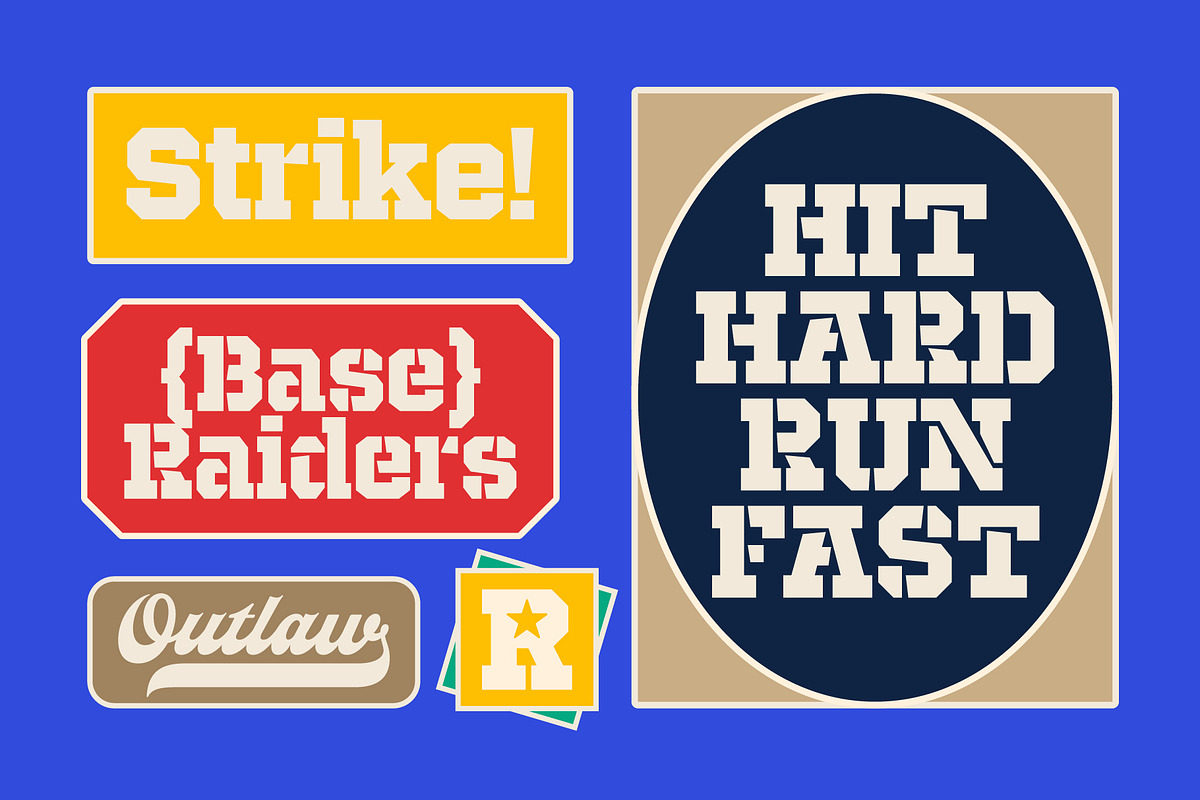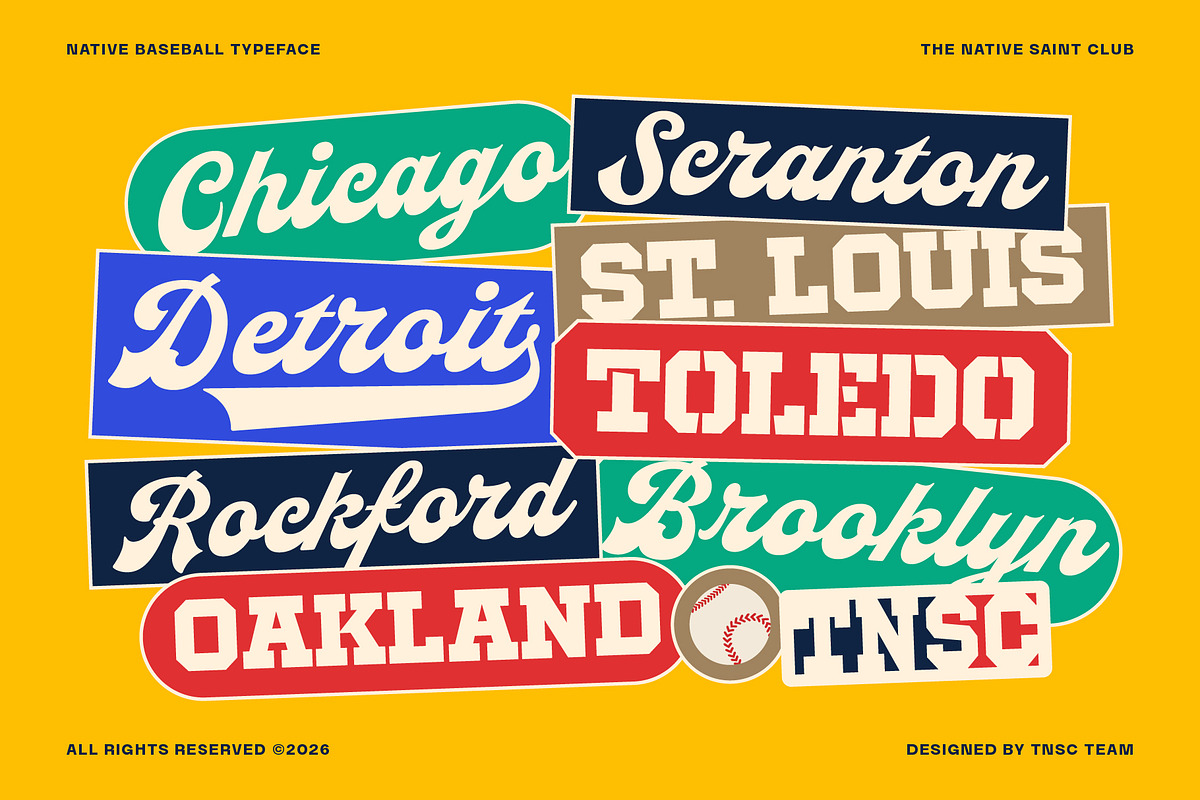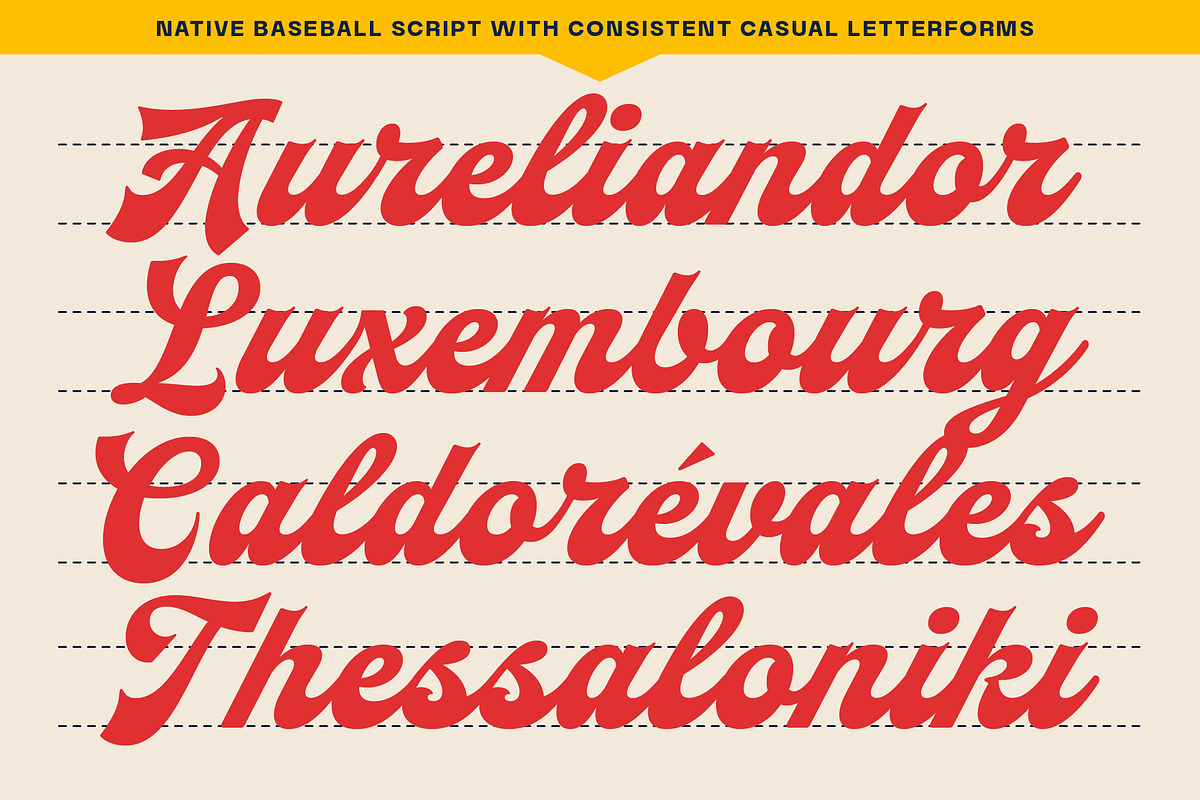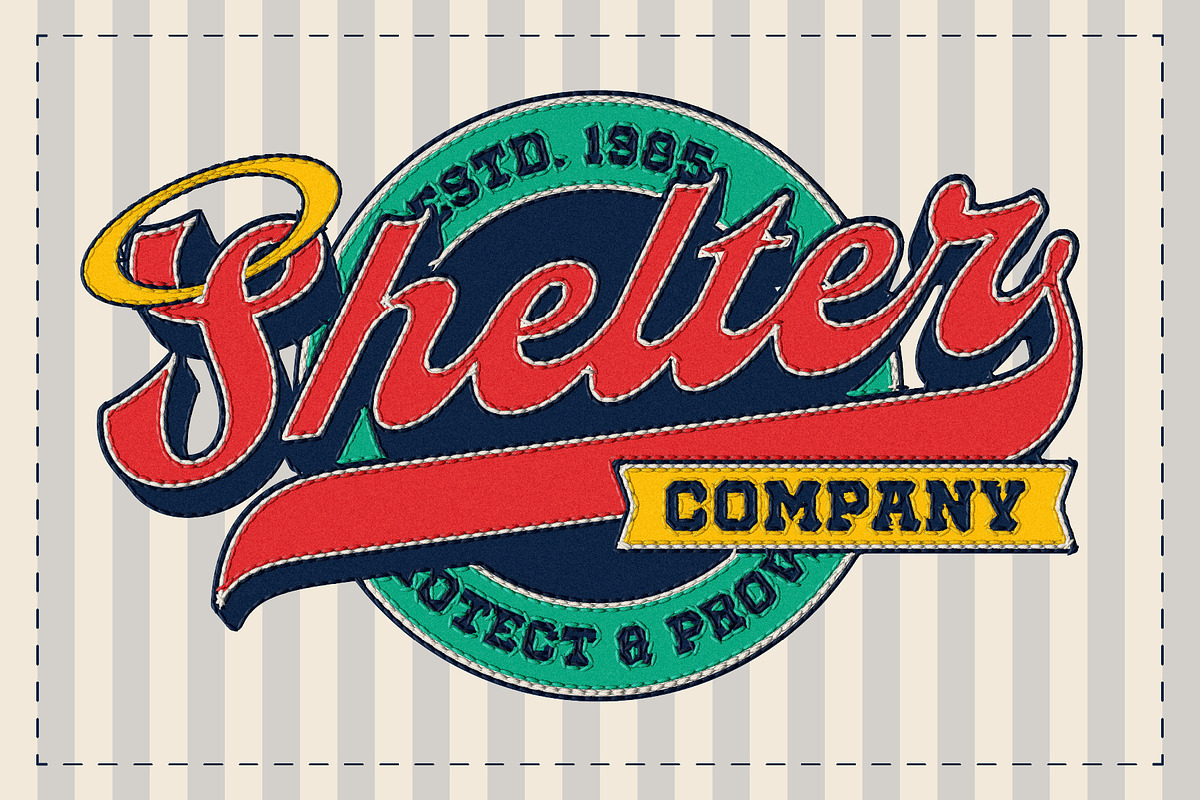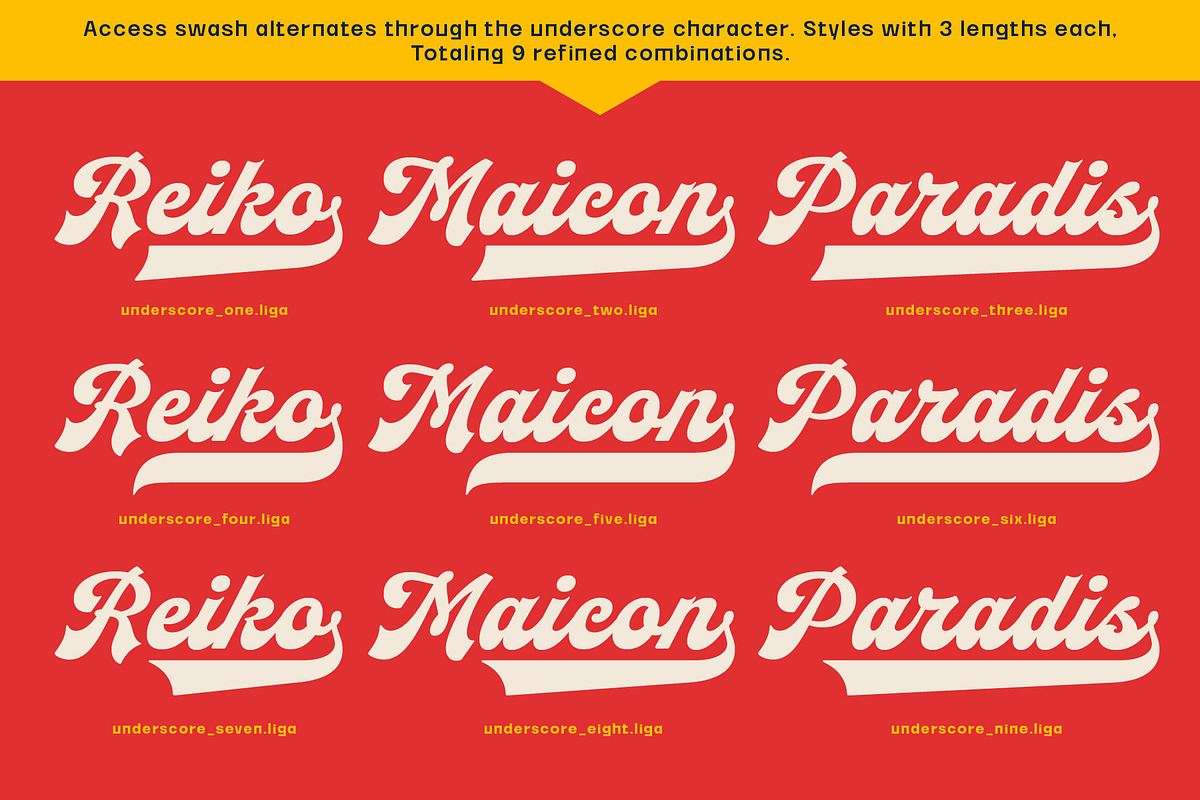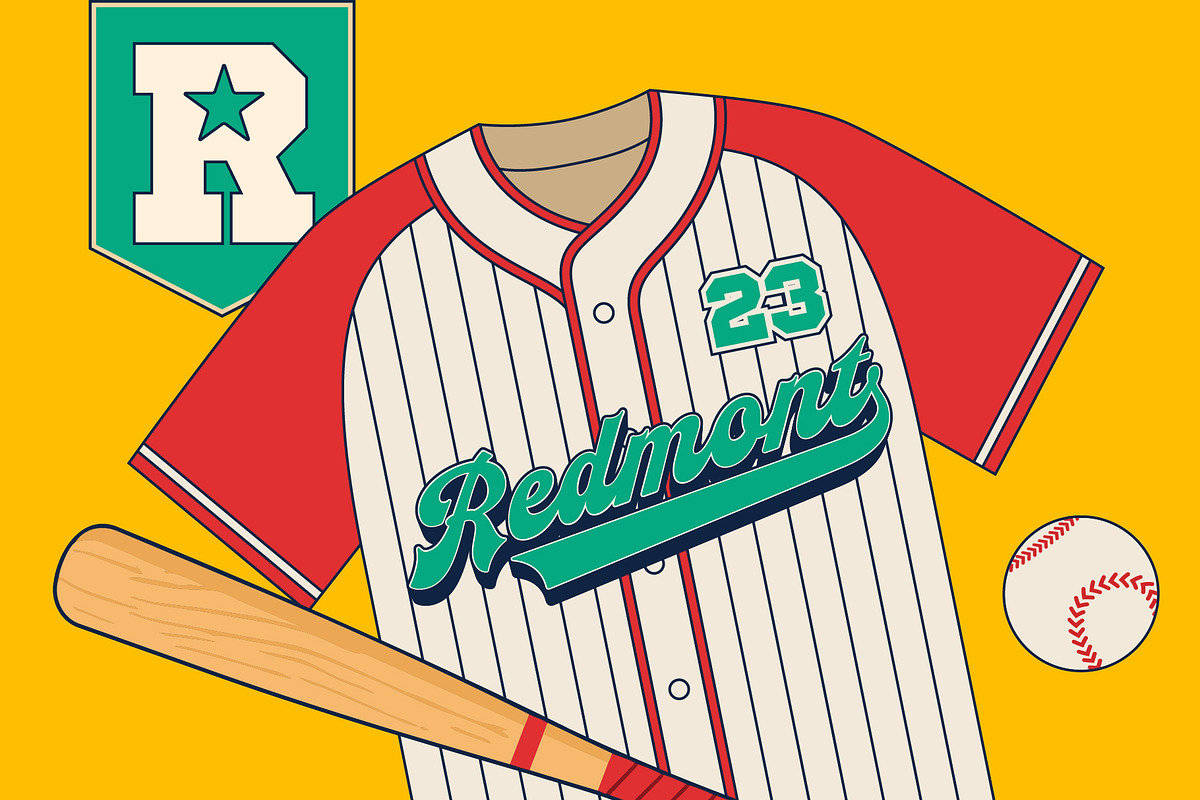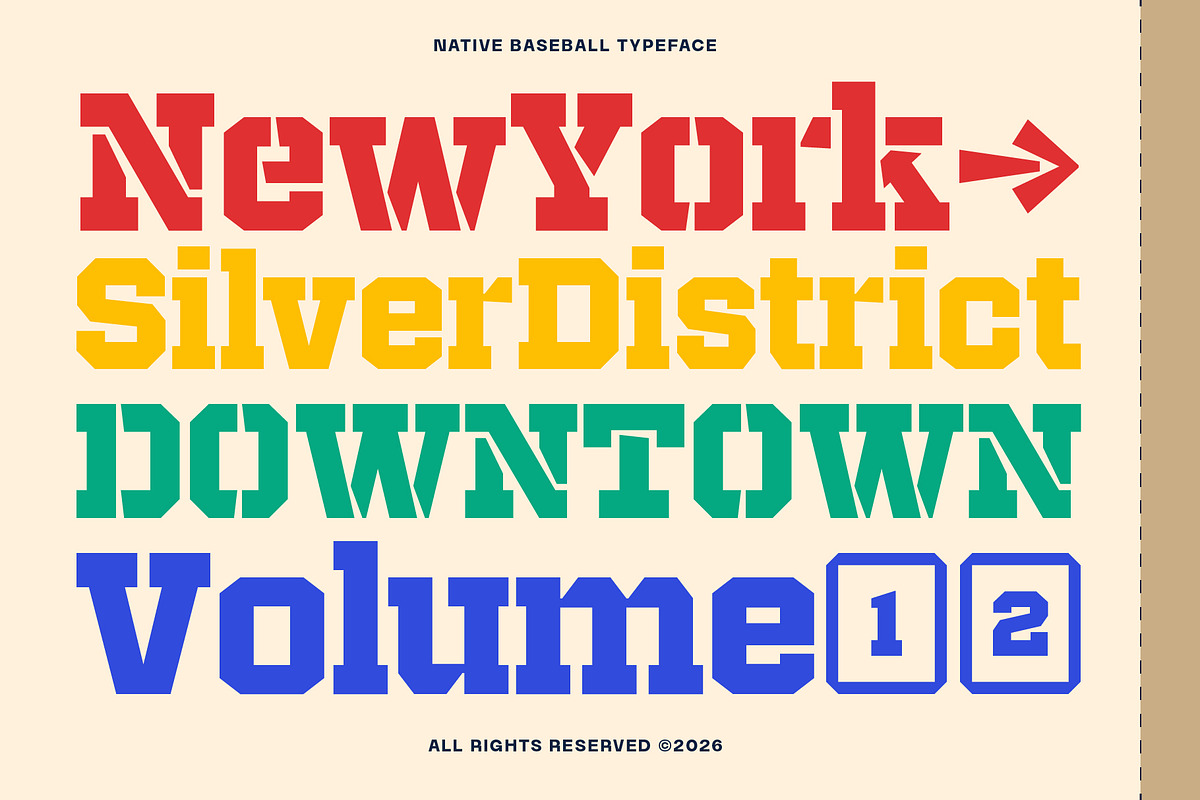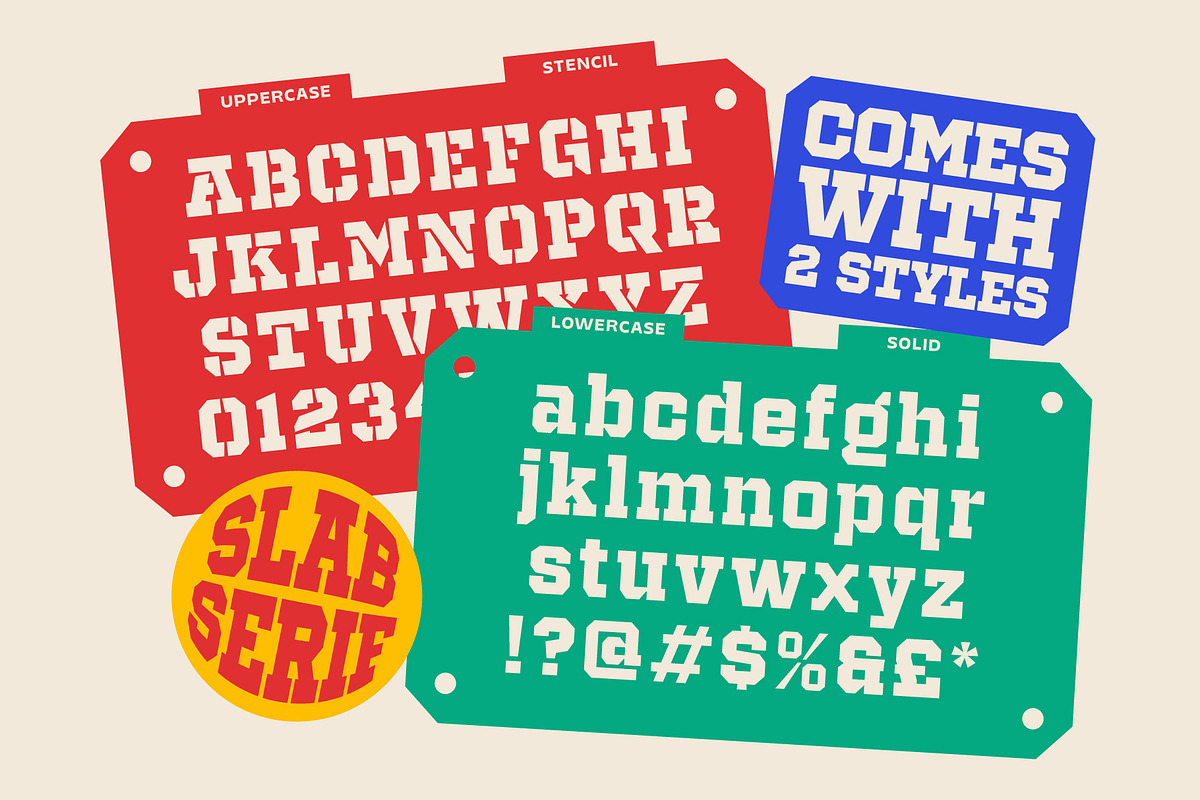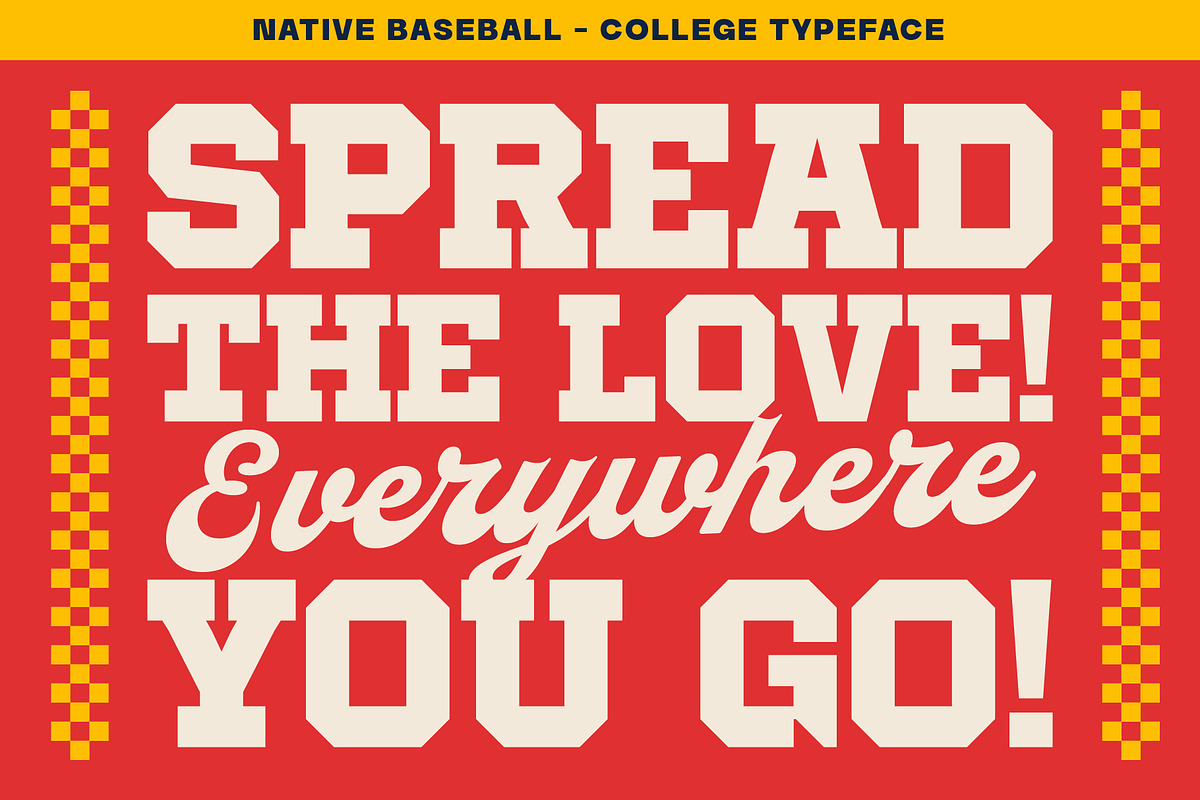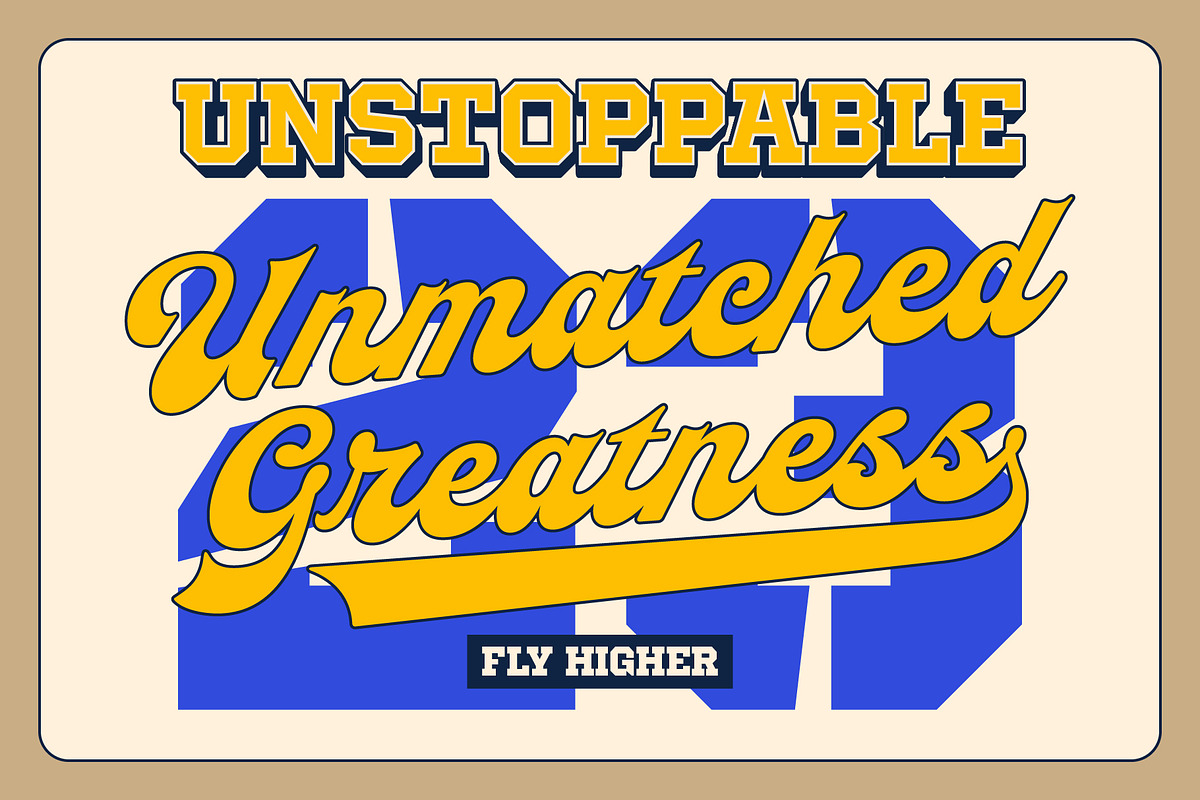
Native Baseball - Font Duo
Native Baseball is a retro varsity font duo that contains a Script and Slab Serif. This font duo is perfect for baseball or football logos! The script font has flowing strokes and decorative elements, making it ideal for headlines and logos, while the slab serif offers bold shapes and uniform stroke widths, giving it a solid, strong feel. It’s perfect for branding, packaging, advertising, and printed materials that require a retro, vintage feel.